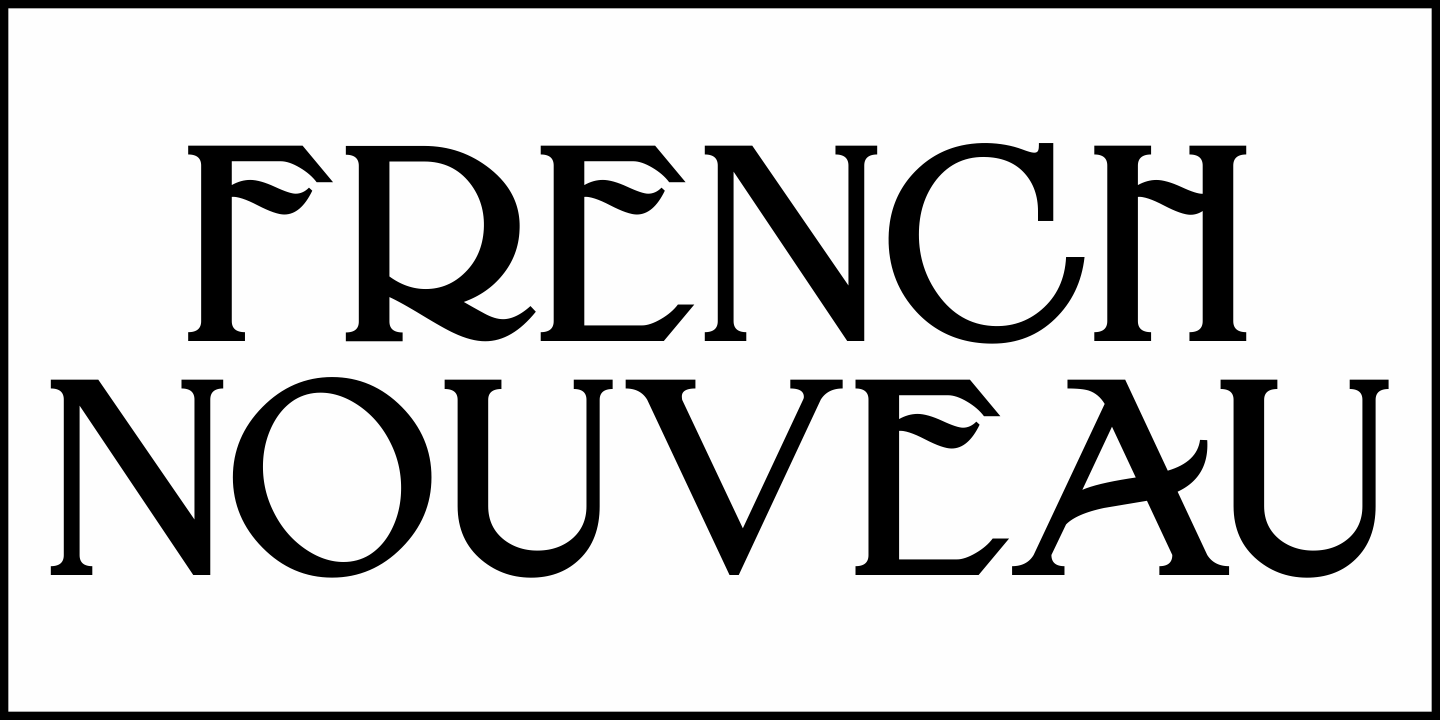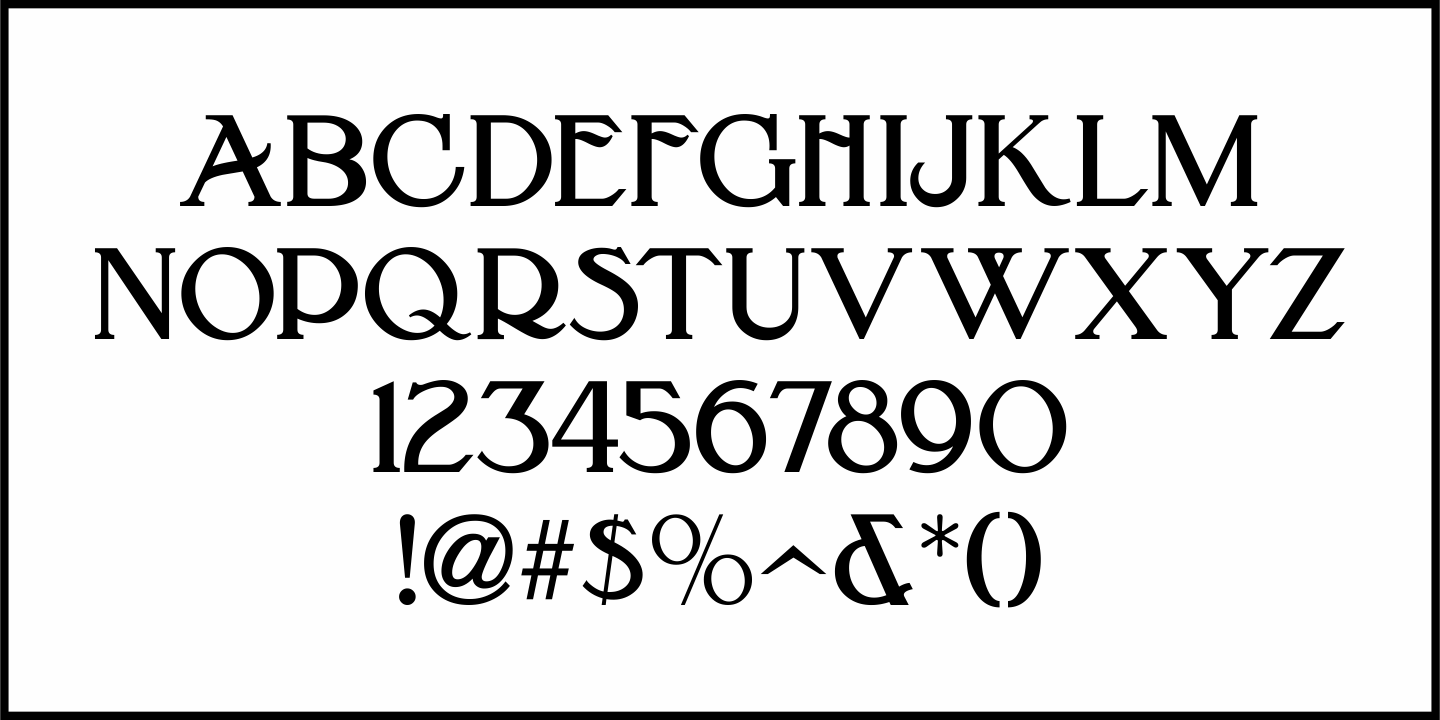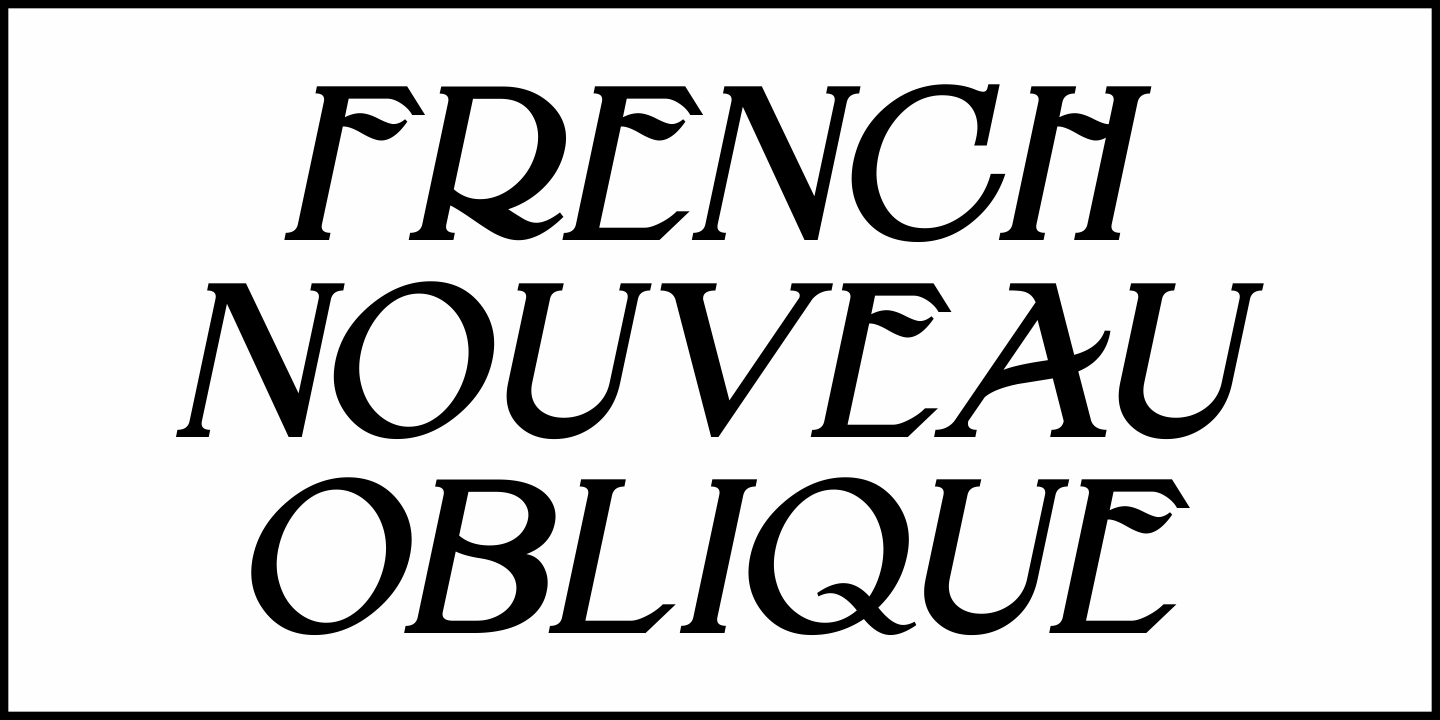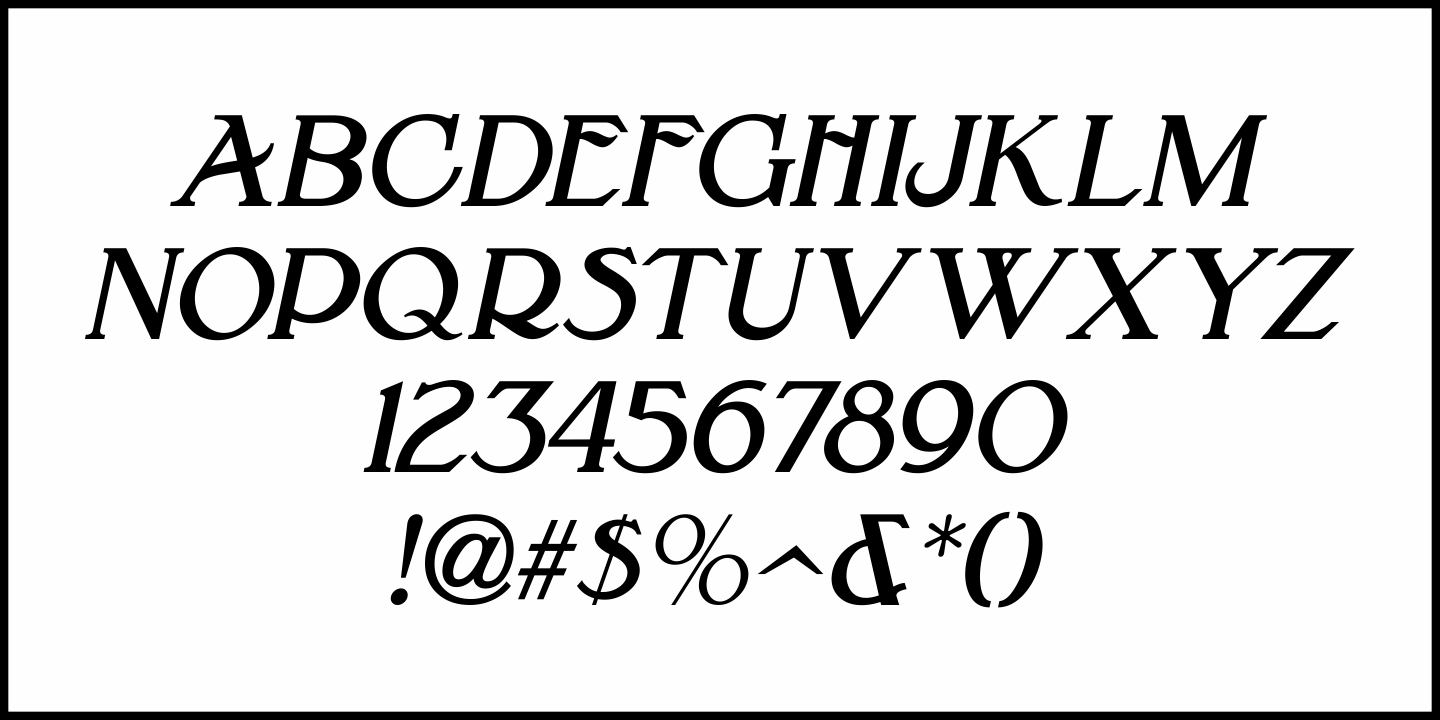
French Nouveau
The hand lettering on a World War I recruitment poster for the French Air Service inspired French Nouveau JNL, which is available in both regular and oblique versions.